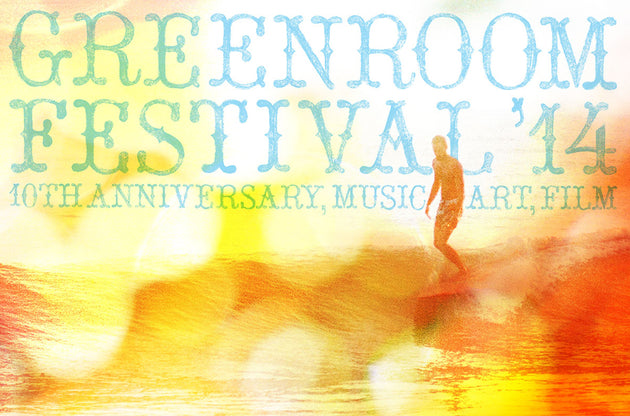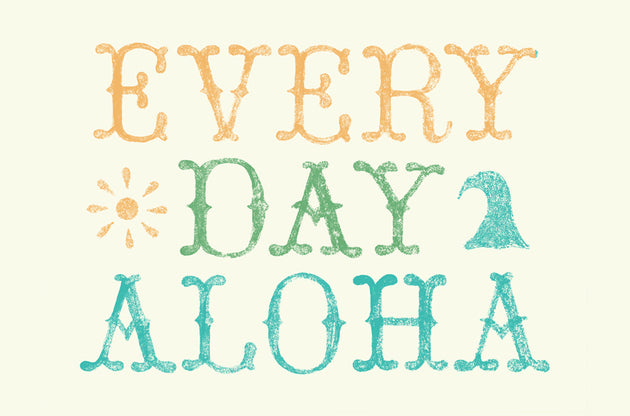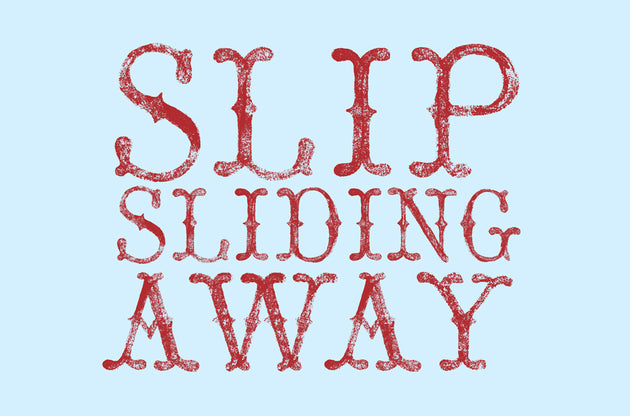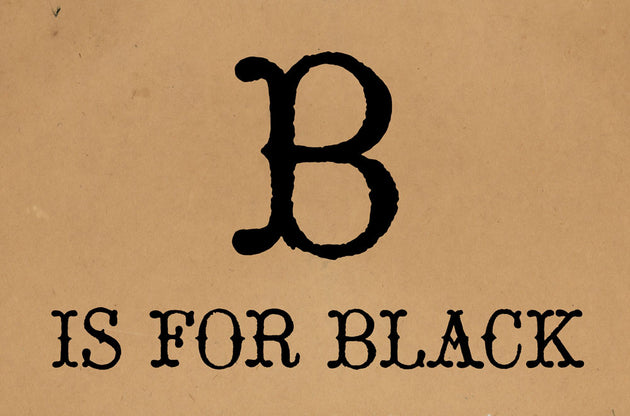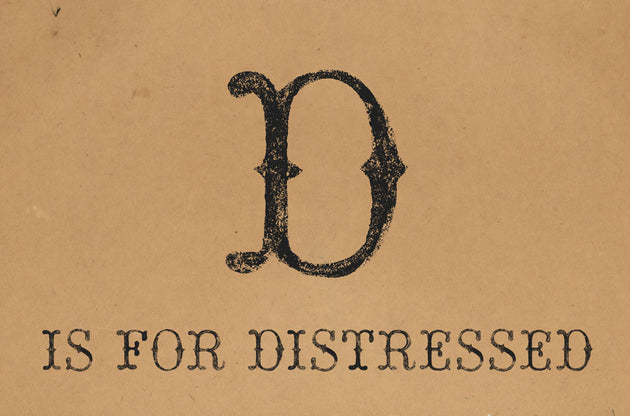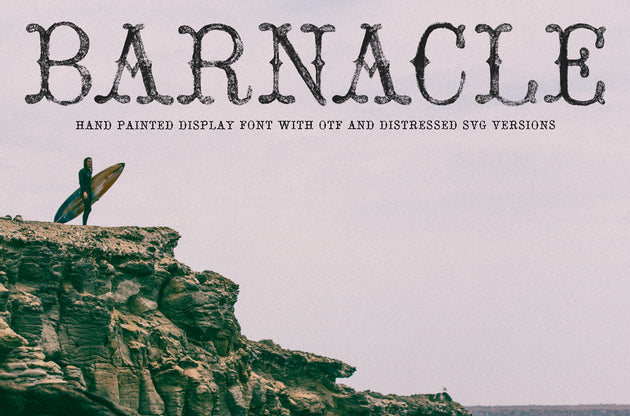
Barnacle Font
This font looks hand painted because... it was hand painted... outside of a computer.
Barnacle is a hand painted script font available in 2 unique finishes - Distressed and Black. This OTF font with an SVG option is a unique take on a vintage style hand painted script.
SVG Fonts, usable in Adobe Photoshop, enable the nuance and texture of a hand lettered type to translate to the font form. The Distressed version of Barnacle is a great example of how an SVG font can emulate hand painted type. You can use adjustment layers to change the color of the font and adjust the font layer using "multiply" to achieve stunning, true to life, effects!
The Black version of Barnacle is a vector OTF font that is infinitely scalable. It still possesses the nuance of a hand lettered font, while working just like any other font in your font library.